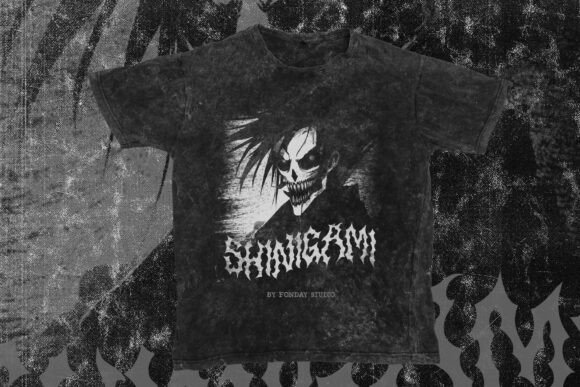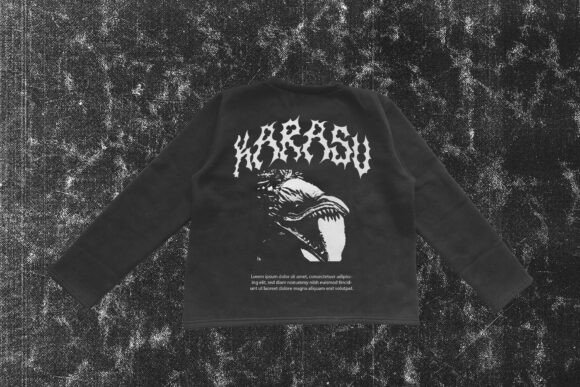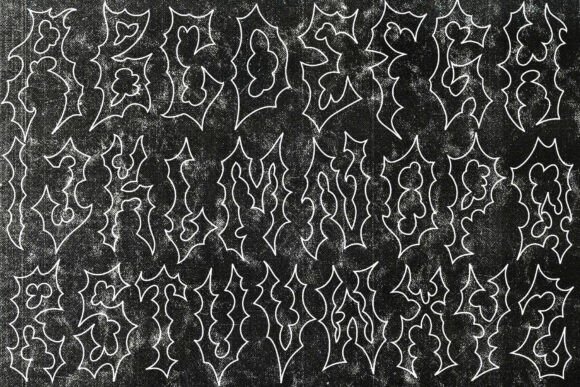
The Unbridled Energy of Anger Raven Font
I still remember the design project that led me to discover Anger Raven Font. I was working on a noise album cover, and my client wanted a title that would scream intensity and rebellion. I scoured font libraries, but nothing seemed to capture the raw energy I needed. That was until I stumbled upon Anger Raven – a chaotic, rule-breaking display font that instantly resonated with my vision.
A Design Rebel’s Dream Font
Anger Raven is not for the faint of heart. This experimental display font is a deliberate clash of sharp edges, distorted shapes, and brutal rhythm. Inspired by underground noise scenes, street collage, and extreme metal logos, it’s a typeface that defies convention. Each character is a masterclass in anti-design, combining grotesque textures and mutated letterforms to create something purely visceral.
Honest Review: The Good and the Quirky
Here’s what I love about Anger Raven:
- ✨ Unforgettable visual impact – perfect for making loud statements
- ✅ Perfect for noise album covers, avant-garde zines, and anarchic apparel
- 💥 Highly legible in large sizes, despite its chaotic design
And here are some quirks to consider:
- ⚠️ Limited use in small sizes – it can become illegible
- 🤔 May not be suitable for clear, concise messaging
A Practical Guide to Using Anger Raven
Anger Raven’s designer drew inspiration from the raw energy of underground noise scenes, street collage, and extreme metal logos. The result is a font that embodies the spirit of rebellion and intensity. While the designer’s background is shrouded in mystery, their passion for pushing design boundaries is evident in every character.
| Font Name | Anger Raven Font |
| Author | Fonday Design Studio |
| What is Anger Raven Font best used for? | Anger Raven Font is perfect for noise album covers, avant-garde zines, anarchic apparel, and any project that thrives on intensity, rebellion, and distortion. |
| Is Anger Raven Font legible? | Anger Raven Font is highly legible in large sizes, but may become illegible in smaller sizes due to its chaotic design. |